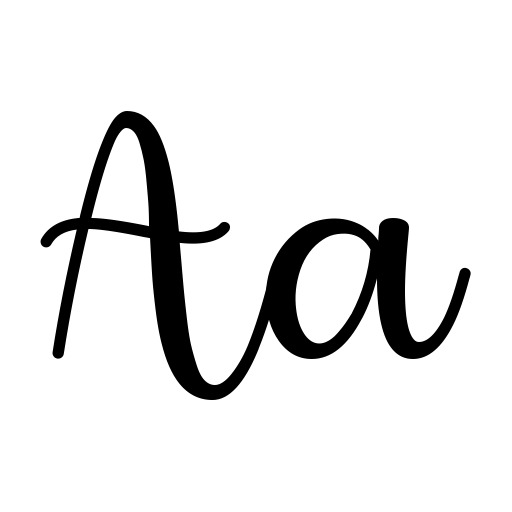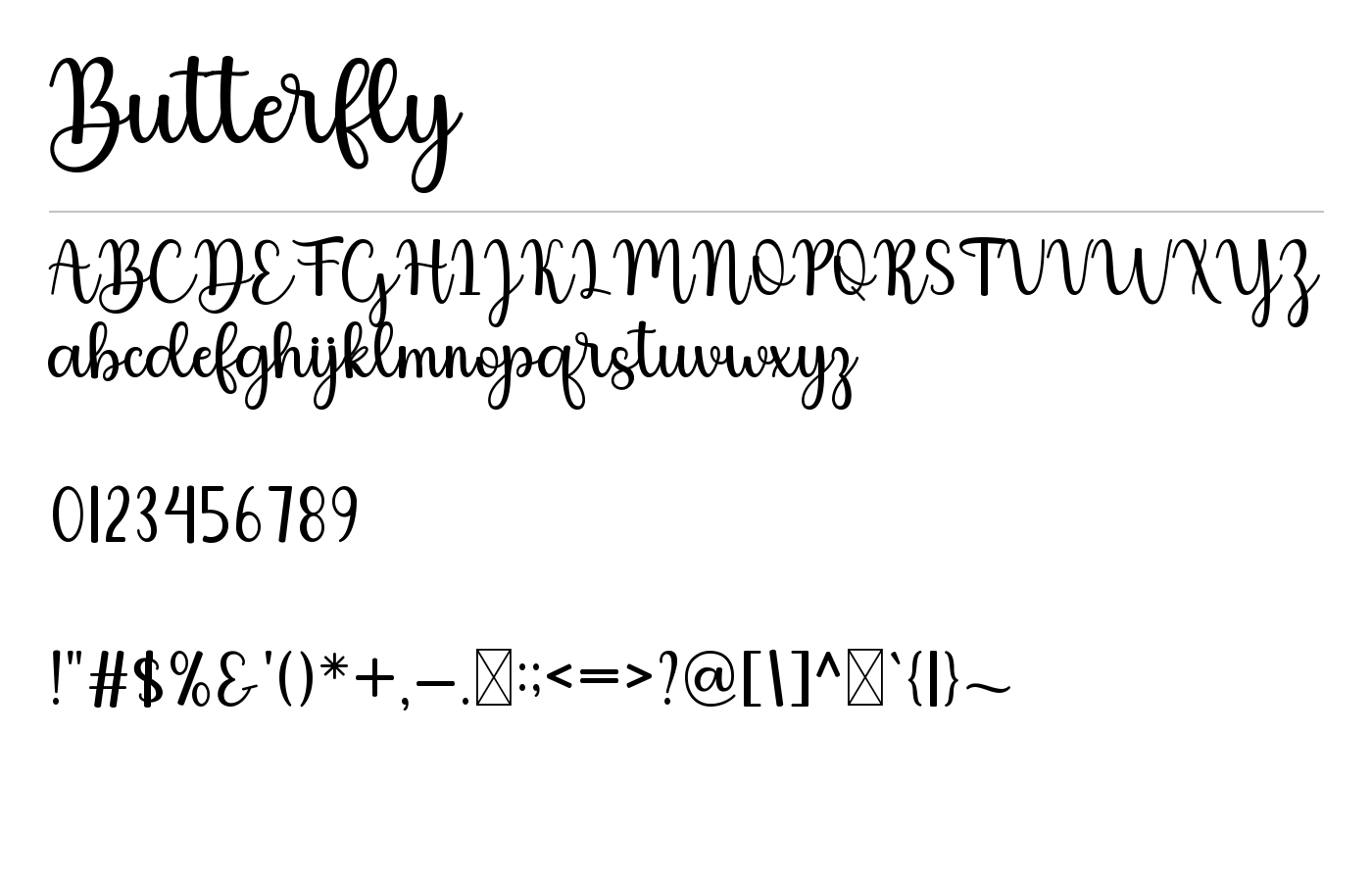
Butterfly Font is a playful and elegant script typeface with a friendly, handwritten feel. Its smooth, flowing lines and delicate loops create a charming and approachable look, making it perfect for invitations, branding, and creative projects that want to convey warmth and personality. This font works well in headlines and decorative text where a personal, artistic touch is desired.
| Font family | Butterfly Font |
| Designer | wahyu setiyawan |